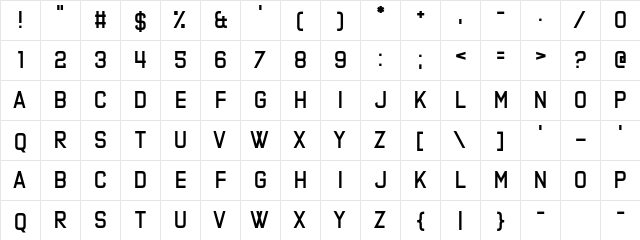
Phonograph Regular
| Designer | Allison James |
Design Context for Phonograph Typeface
Phonograph offers clean, dependable letterforms without strong stylistic allegiance, making it a practical choice for designers who need flexibility.